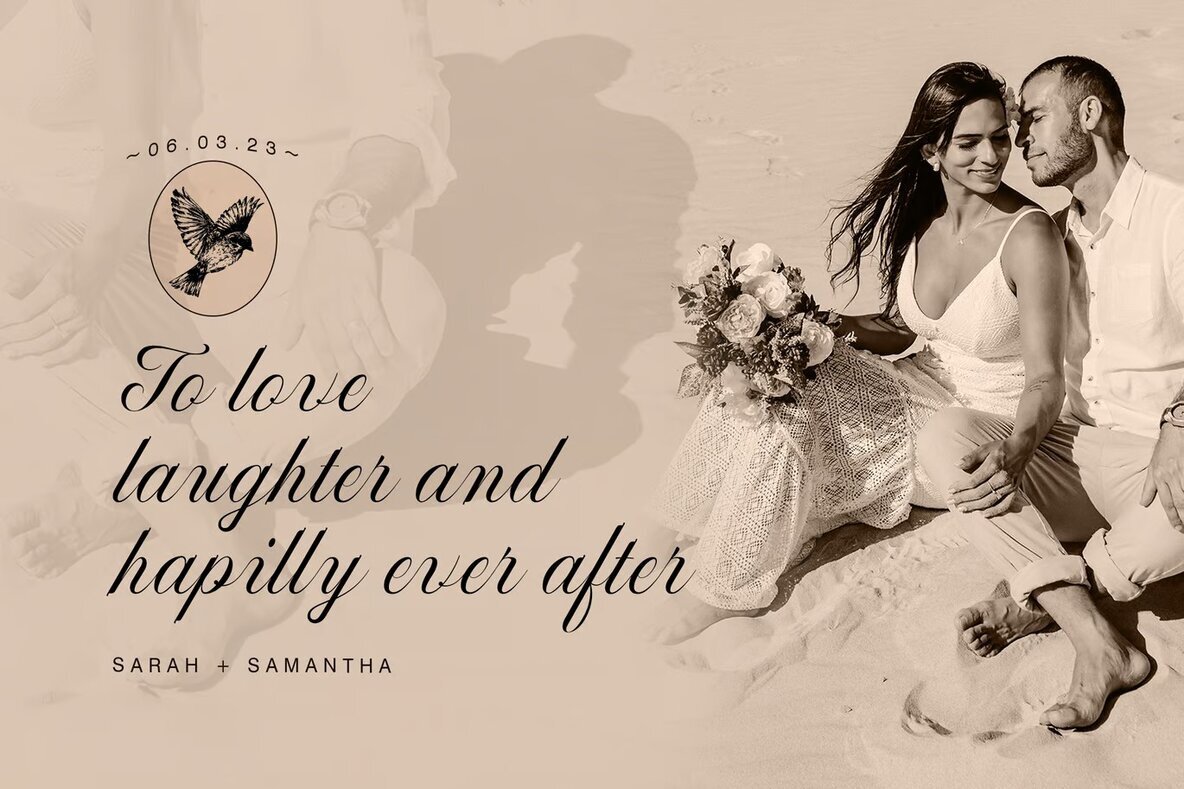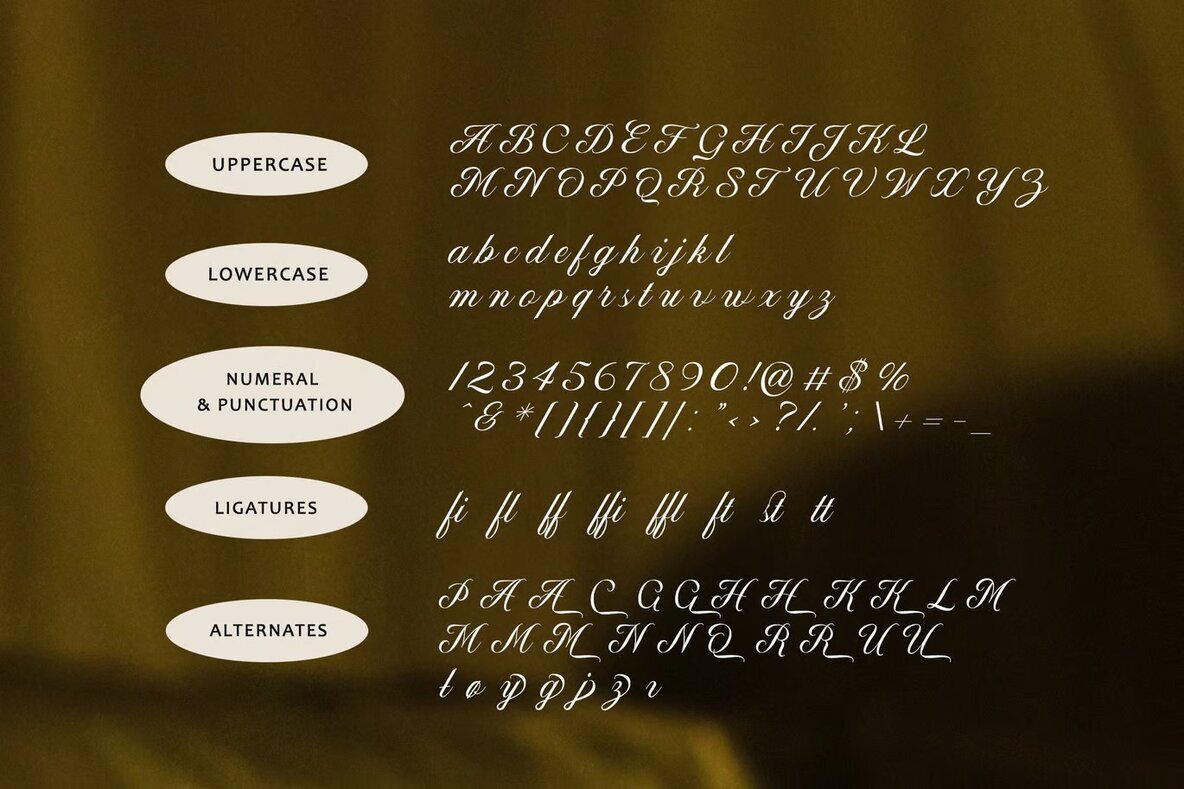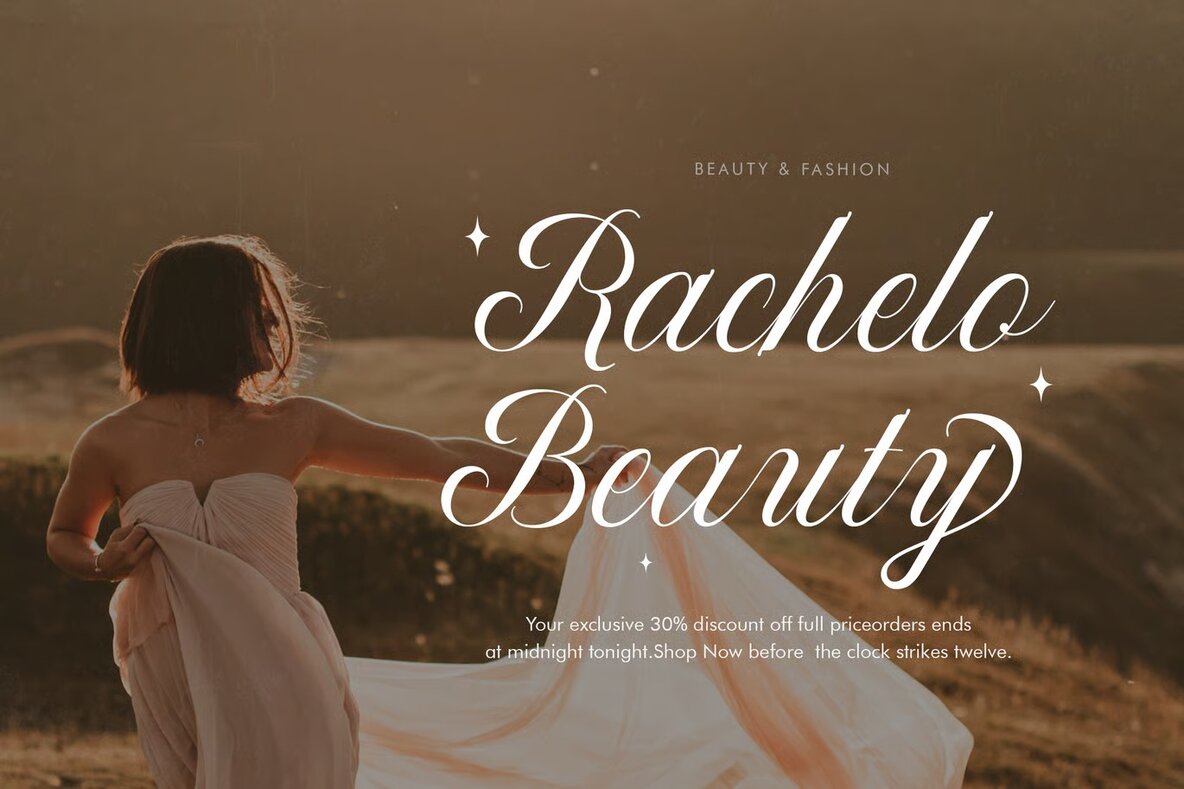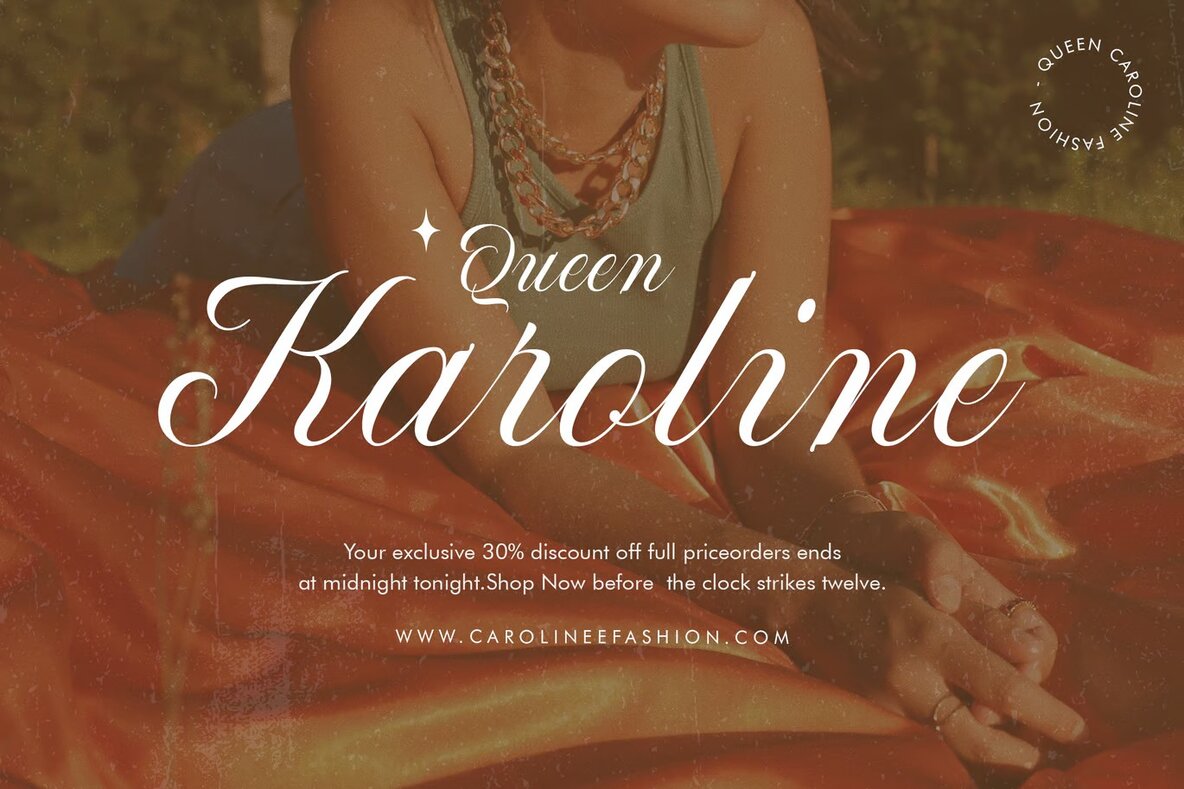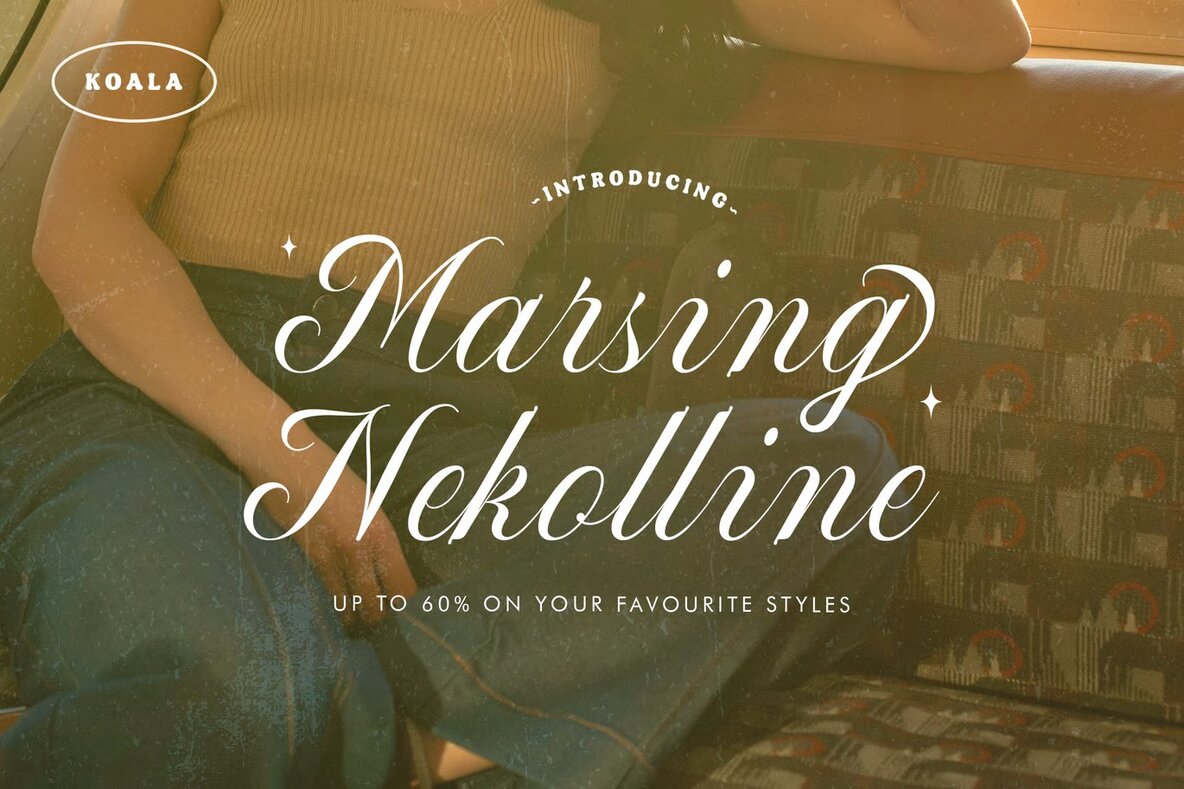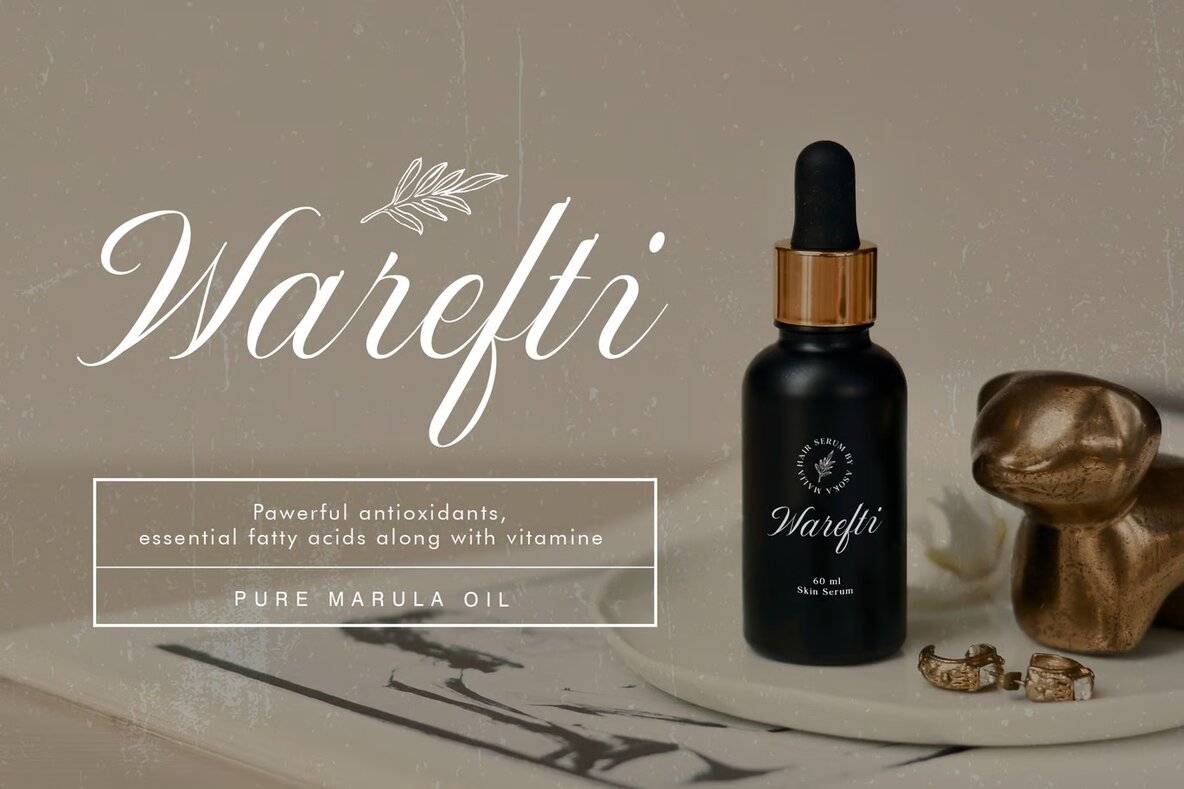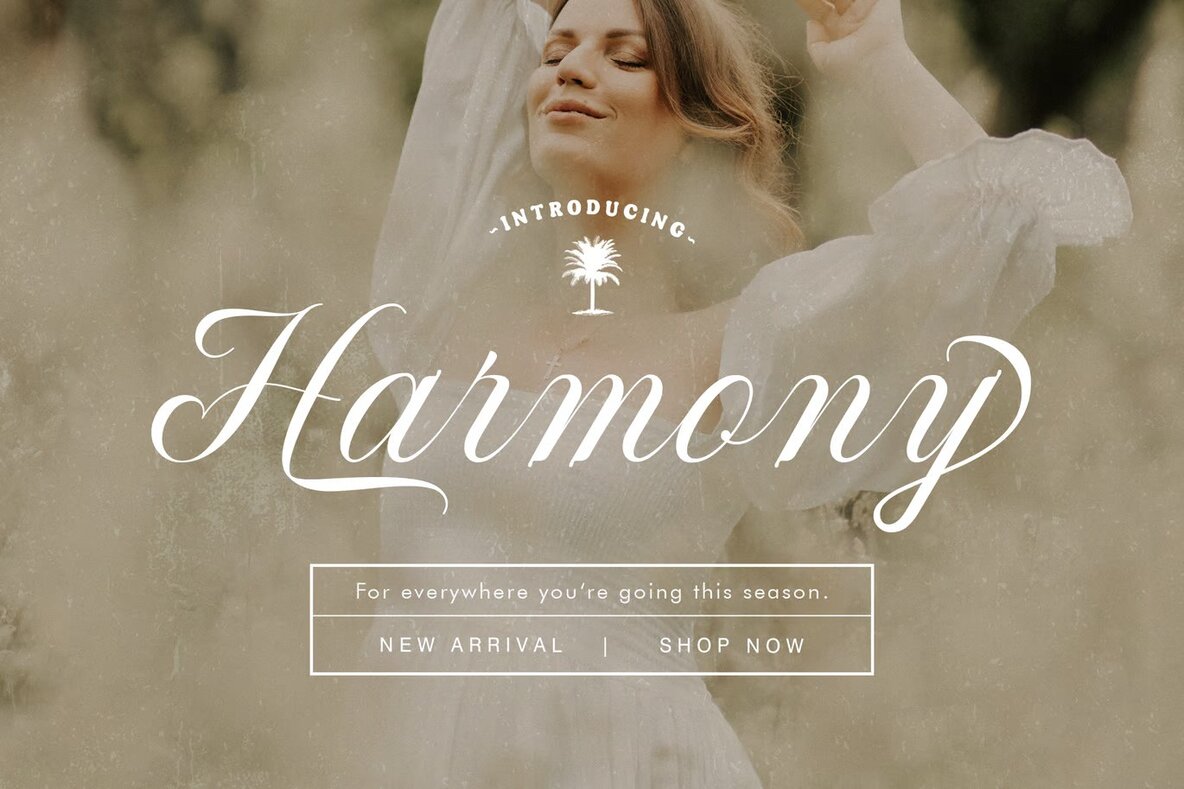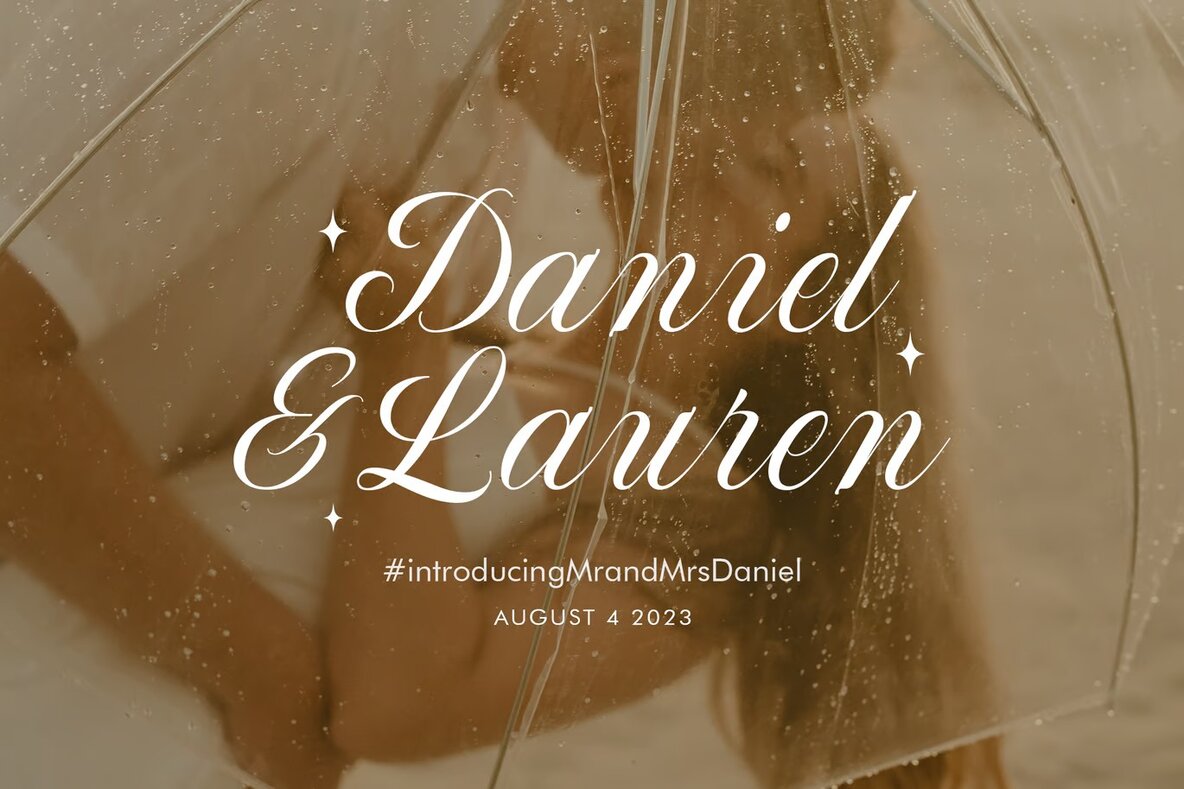
Mrs Hannah Font
Mrs Hannah Italic
Mrs. Hannah Script is a beautifully crafted Copperplate calligraphy font that exudes classic romance and timeless elegance. Designed with delicate strokes, ornate flourishes, and graceful curves, this font brings a sophisticated touch to any project. Ideal for wedding invitations, love letters, branding, logos, and more, Mrs. Hannah Script creates an exquisite and romantic atmosphere in your designs.
Perfect for capturing the essence of heartfelt emotions, Mrs. Hannah Script enhances your work with an elegant and fancy design. Its refined details and classic appeal make it a versatile choice for various applications that require an enchanting and lovely touch. Let the charm of Mrs. Hannah Script imbue your projects with timeless beauty and captivating elegance.